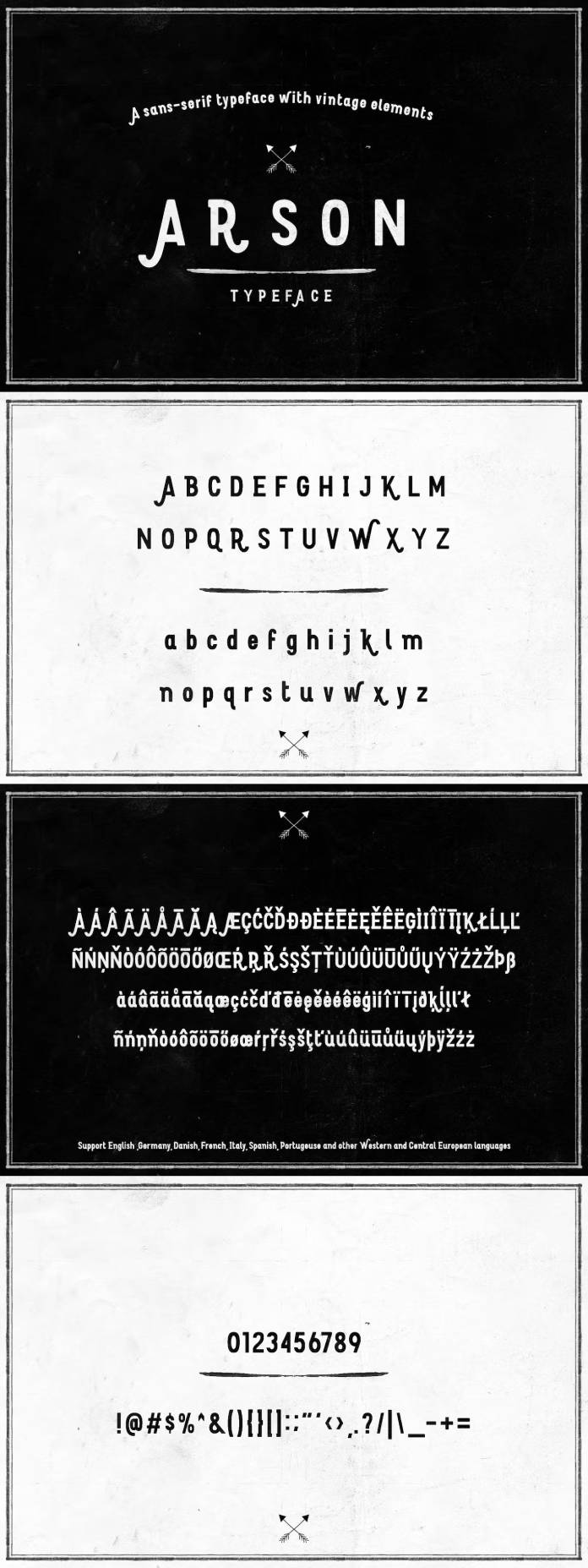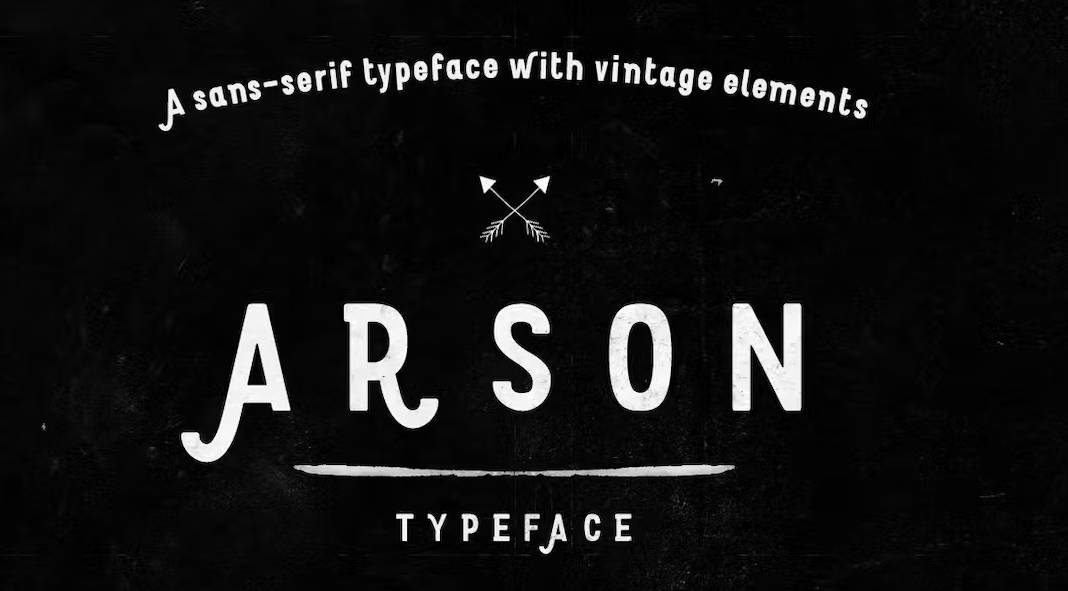
Introducing Arson Typeface: The Perfect Blend of Vintage and Versatility
In the world of typography, finding the right balance between modernity and nostalgia is an art form in itself. The Arson typeface emerges as a brilliant synthesis, embodying a little rounded, multilingual, regular sans-serif style, adorned with subtle vintage elements. Its versatility makes it an exceptional choice for a myriad of design purposes, from vintage logos and branding to artsy posters and beyond.
The Essence of Arson:
Arson effortlessly marries a sleek, contemporary look with a hint of old-world charm. Its rounded edges evoke a sense of friendliness and approachability while retaining a timeless appeal. This unique amalgamation of traits makes it a standout choice for designers seeking a typeface that exudes both character and adaptability.
Multilingual Mastery:
One of Arson’s crowning features is its extensive language support. Embracing languages spanning Spanish, Portuguese, German, Danish, French, Canadian French, Italian, and Western and Central European tongues, it ensures that your message resonates eloquently across diverse audiences.
Unleash Creativity with Arson:
Whether crafting a vintage-inspired logo, curating an artistic poster, or enhancing brand identity, Arson serves as a creative catalyst. Its ability to evoke nostalgia while remaining contemporary grants designers the freedom to experiment and evoke emotions through their designs.
Final Thoughts:
In the ever-evolving landscape of design, finding a typeface that seamlessly blends vintage aesthetics with modern versatility is a treasure. Arson stands tall in this pursuit, offering a multifaceted tool for designers to convey their messages with depth and style.
Arson Typeface is more than just letters on a screen; it’s a vessel for stories, a catalyst for emotions, and a bridge across cultures and languages. Embrace its charm, and let your creativity flourish.
Arson Typeface is a testament to the harmony between tradition and innovation, beckoning designers to explore the boundaries of their creativity while paying homage to the timeless allure of vintage aesthetics.